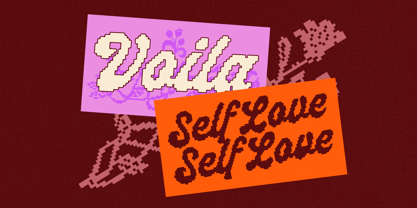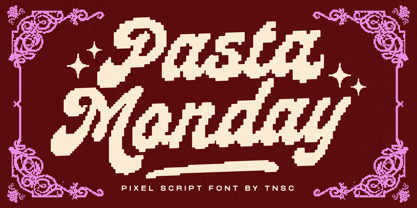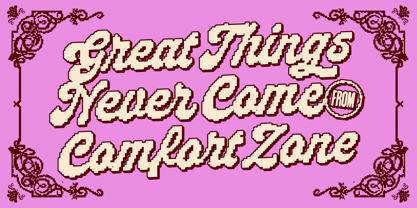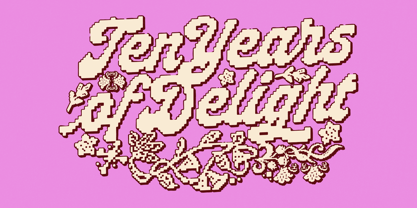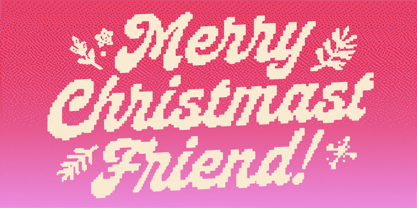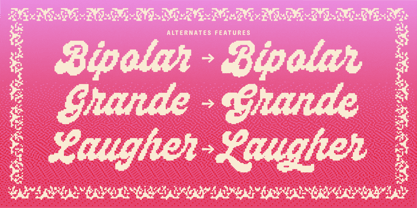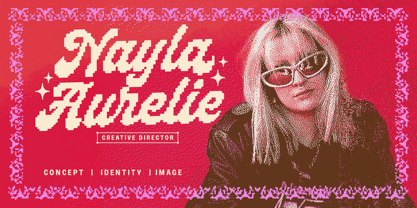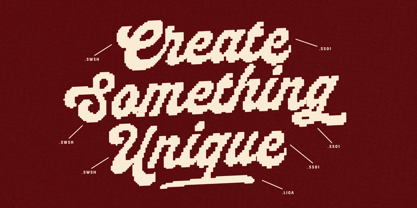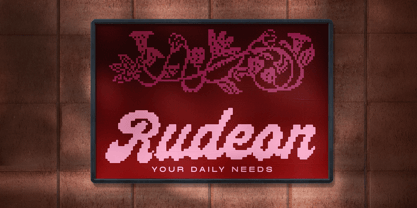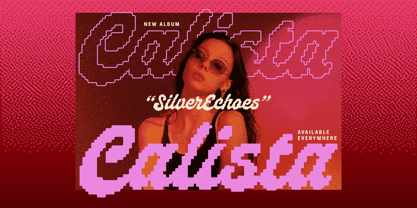
Pasta Monday Pixel
by The Native Saint Club
The Pasta Monday Pixel Font Family was designed by Bagas Ferdiansah, Septianto Nugroho and published by The Native Saint Club. Pasta Monday Pixel contains 1 styles. More about this family
Pasta Monday, a pixel-crafted script font that blends nostalgic 8-bit aesthetics with decorative charm. Its connected pixel letters create a unique handcrafted look, making it perfect for eye-catching posters, album artwork, branding, and creative packaging that needs a playful retro touch. Its distinctive pixel style also makes it a beautiful choice for craft-inspired graphics, cross-stitch patterns, and unconventional seasonal designs.
Designers: Bagas Ferdiansah, Septianto Nugroho
Foundry: The Native Saint Club